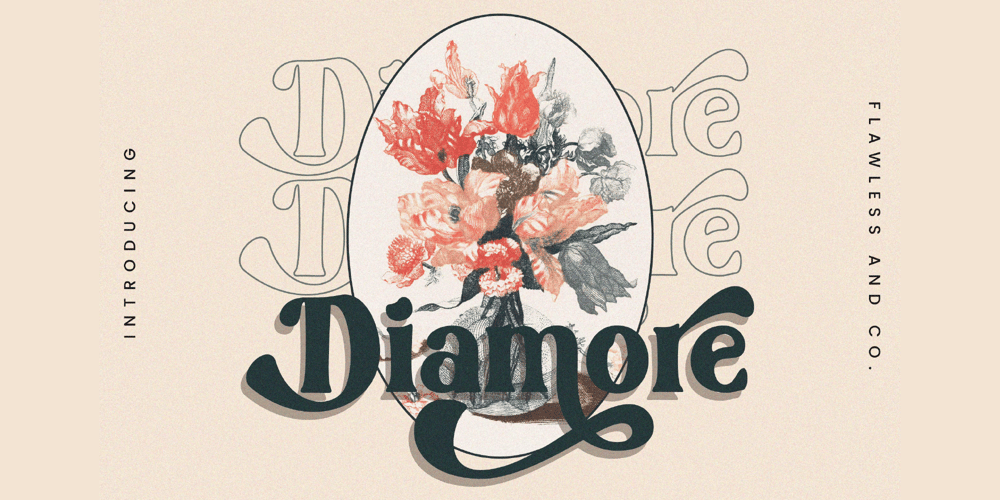
Diamore Font Family was designed by Achmad Yani and published by Flawlessandco. Diamore contains 1 styles and family package options. Diamore is a Modern Retro with Fun and Elegant Style in each character with some alternate.An Original typeface that suitable for any graphic designs such as branding materials, t-shirt, print, business cards, logo, poster, t-shirt, photography, quotes .etcThis font support for some multilingual. Handcrafted Script that contains uppercase A-Z and lowercase a-z, alternate character, numbers 0-9, and some punctuation.If you need help, just write me! Thanks so much for checking out my shop!